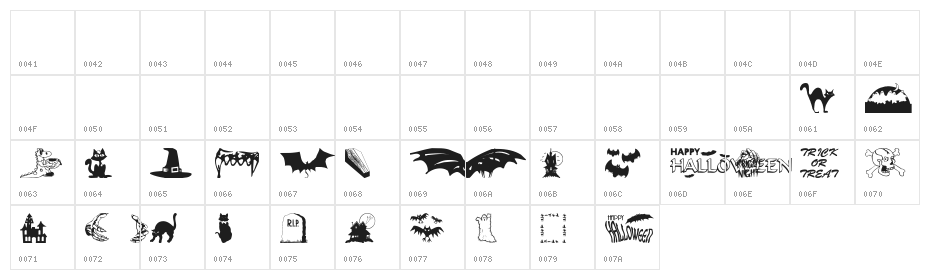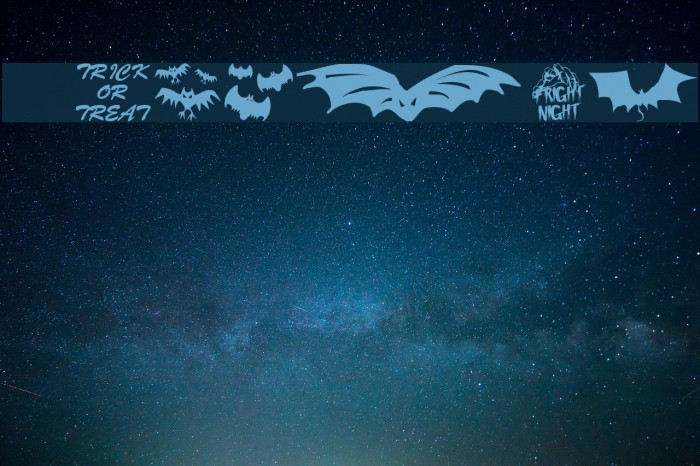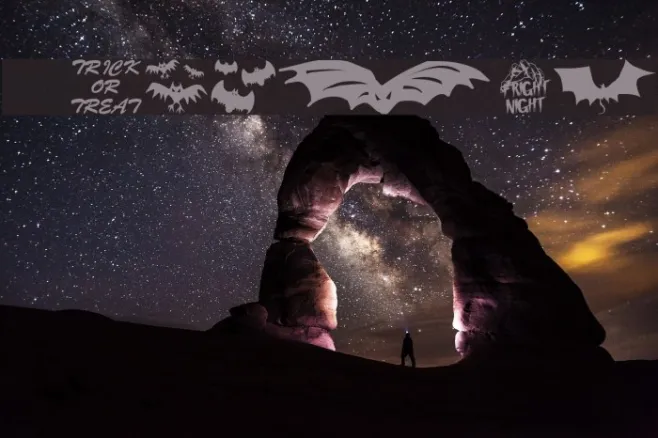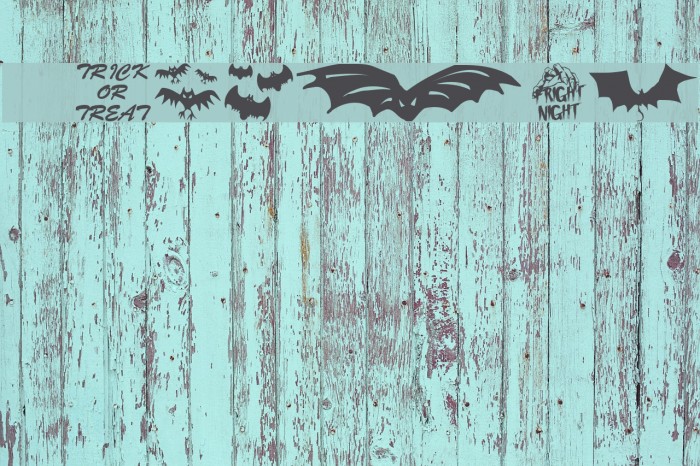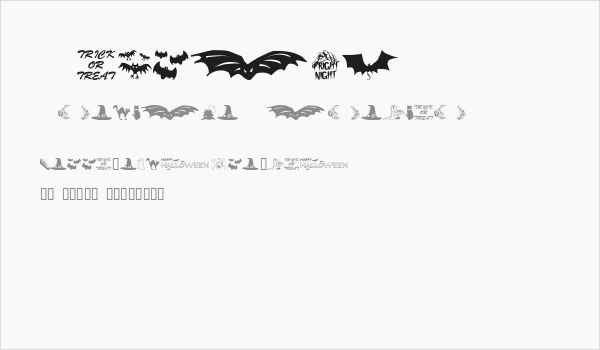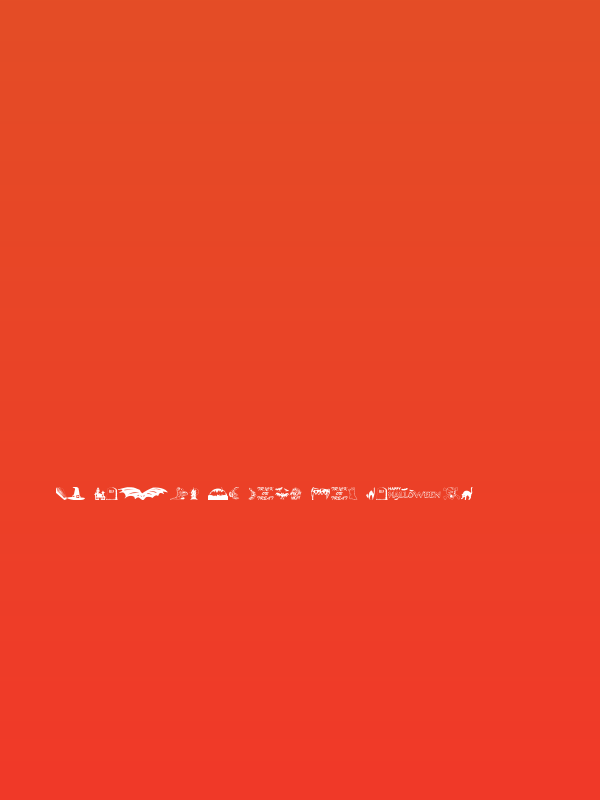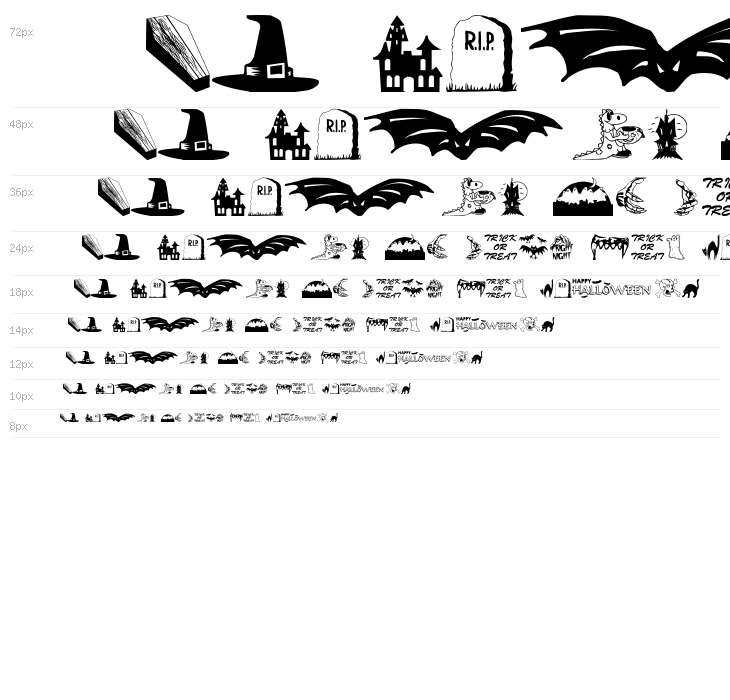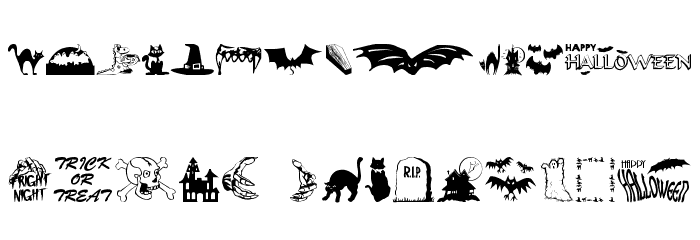
Howling Font
Howling Description
This decorative font is heavily themed around Halloween, featuring a variety of spooky and playful elements such as bats, witches, ghosts, and pumpkins. Each character is a unique illustration that captures the essence of Halloween, making it ideal for festive and themed designs. The font is highly decorative, with each letter or symbol being a distinct graphic rather than a traditional typographic character. This makes it perfect for creating eye-catching headlines or thematic artwork. The style is whimsical and fun, with a clear focus on Halloween motifs, ensuring that it stands out in any design project related to this holiday.
| Use Case | Headlines, Logos, Themed Artwork |
| Proposed Projects | Ideal for Halloween party invitations, themed posters, event flyers, and festive decorations. |